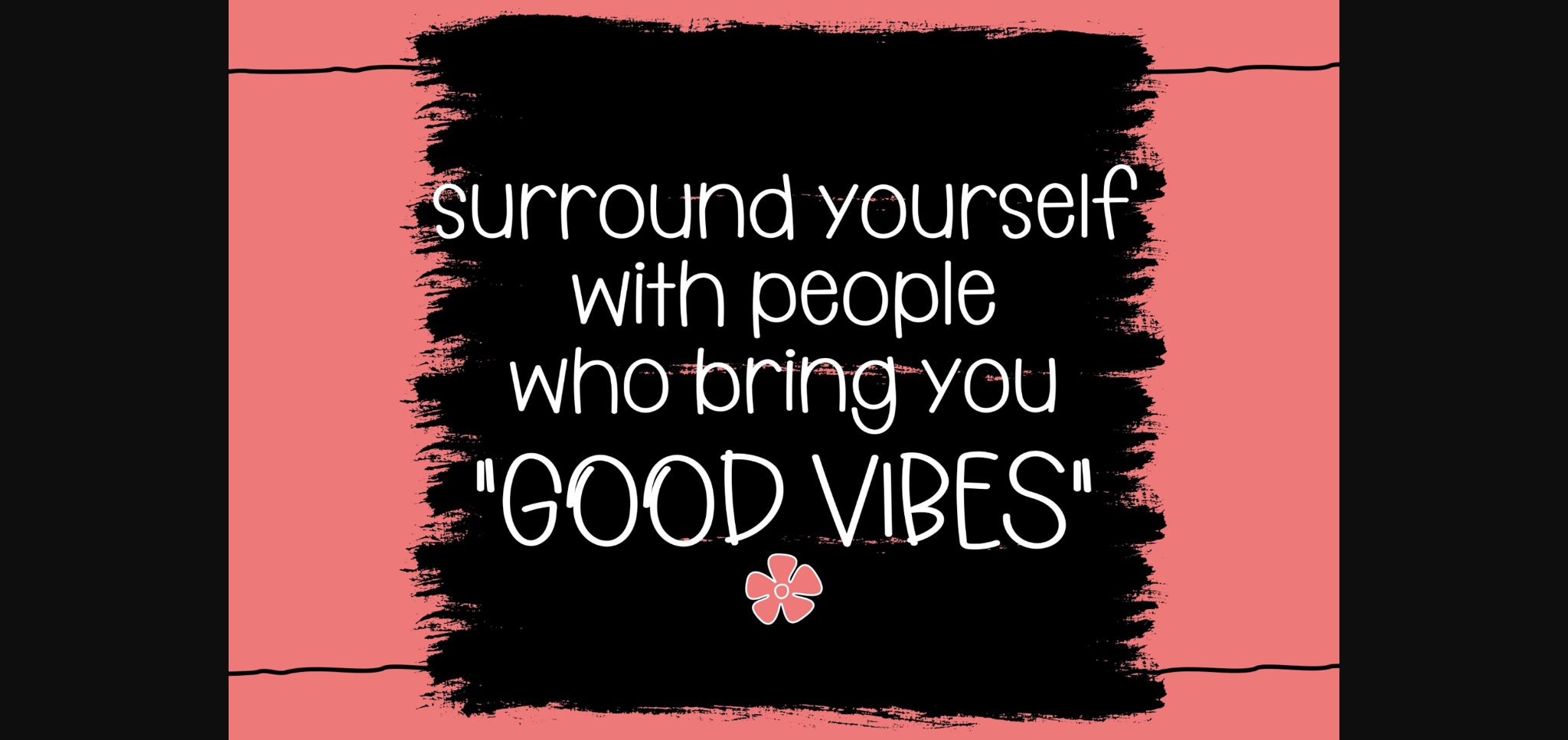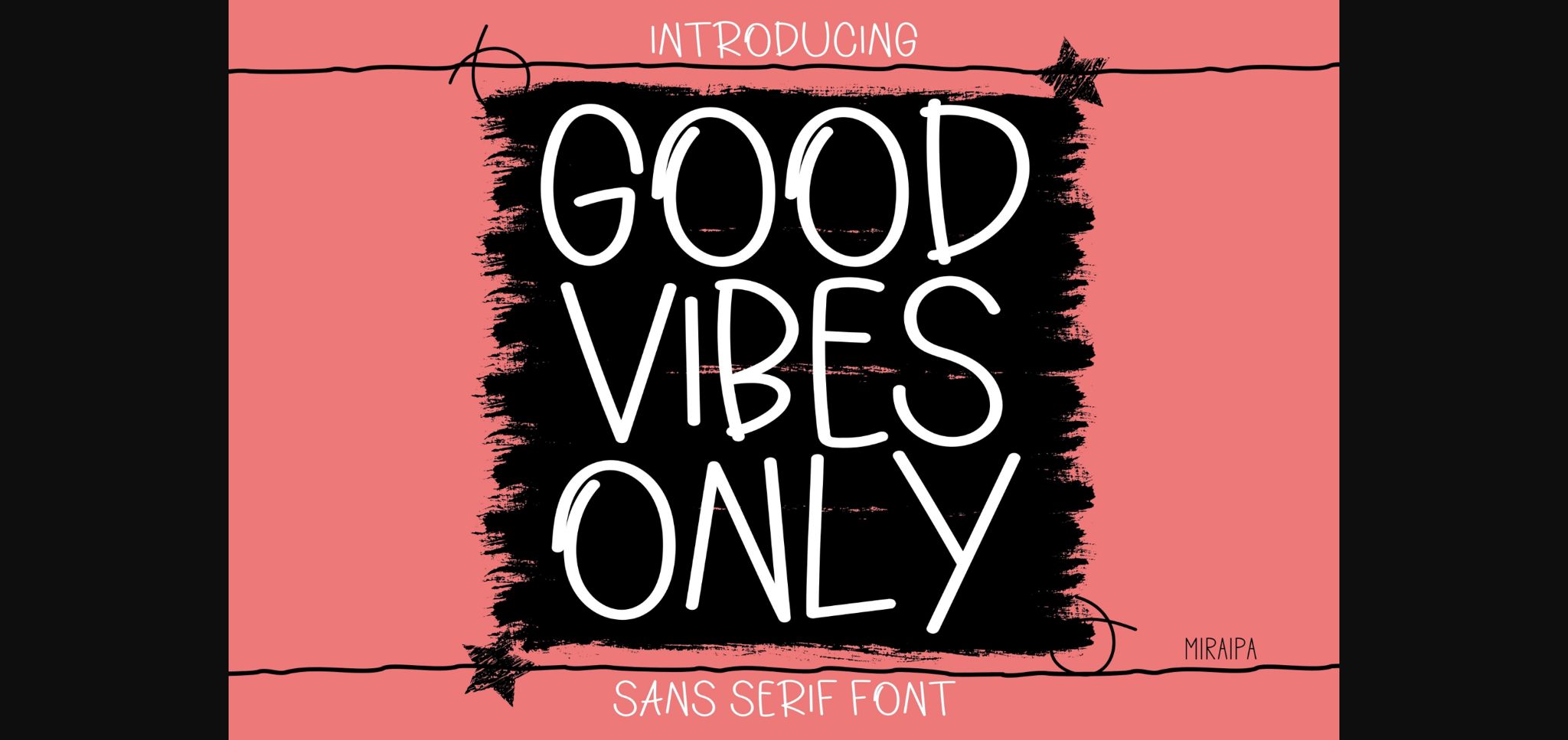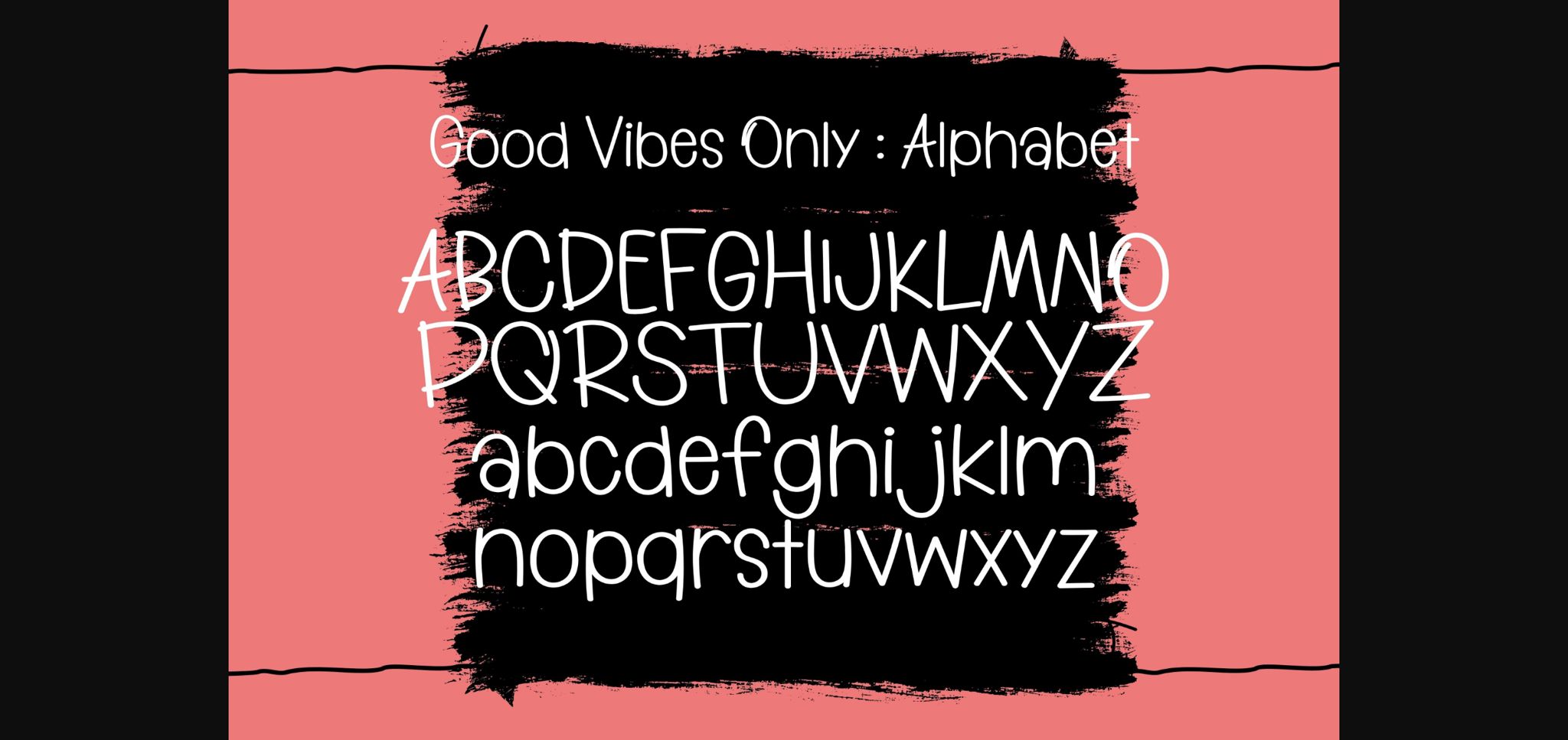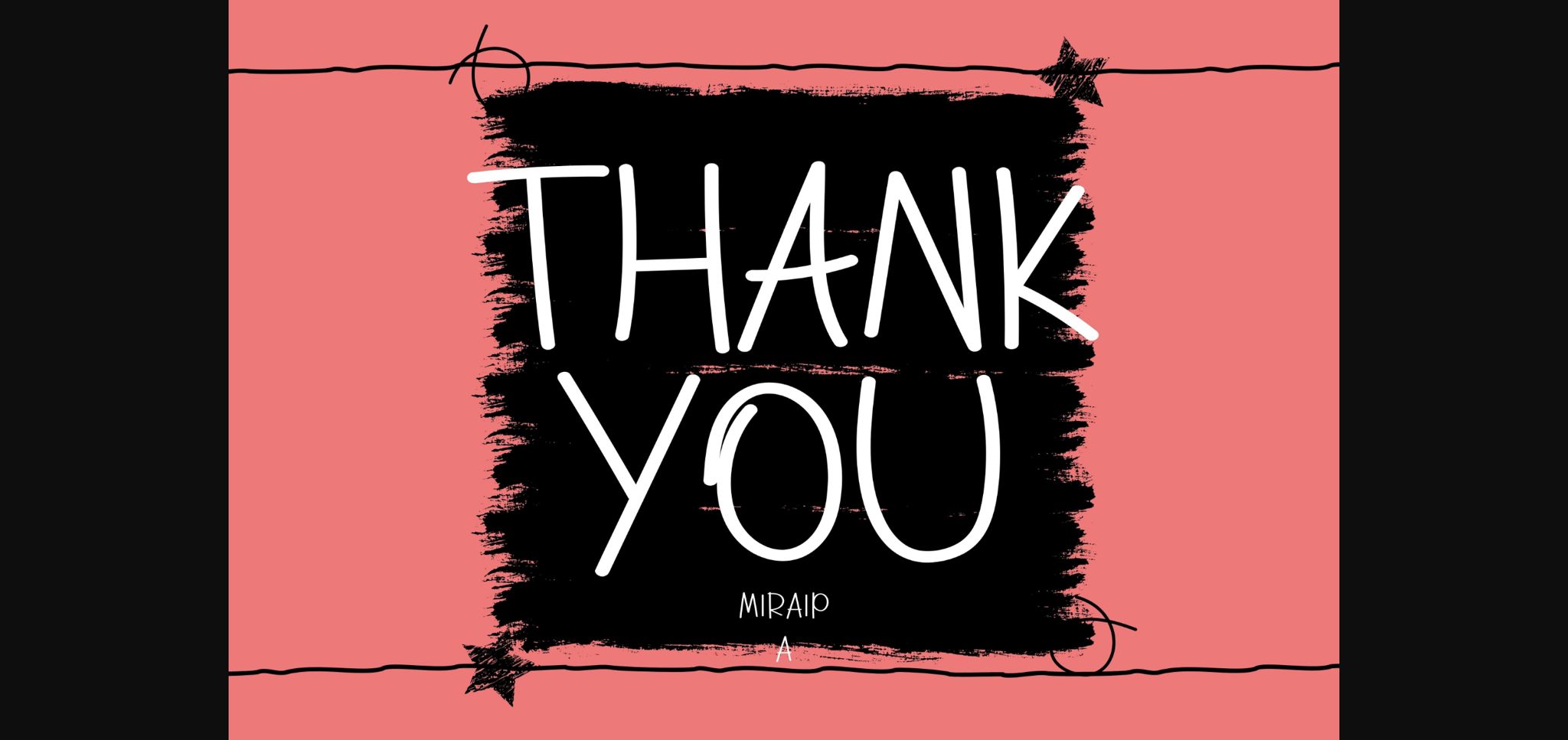
Good Vibes Only Font
About Good Vibes Only Font
Good Vibes Only is a cute and friendly handwritten sans serif font. Incredibly versatile, this font will look great in a wide variety of contexts.